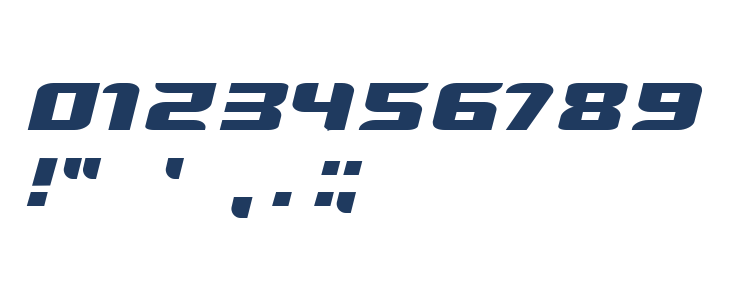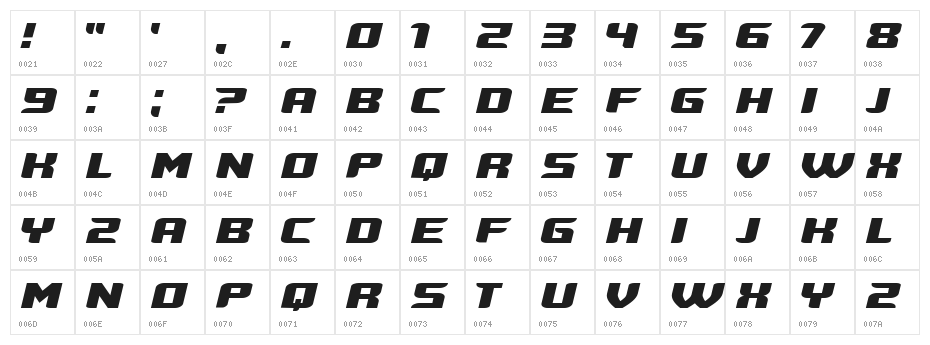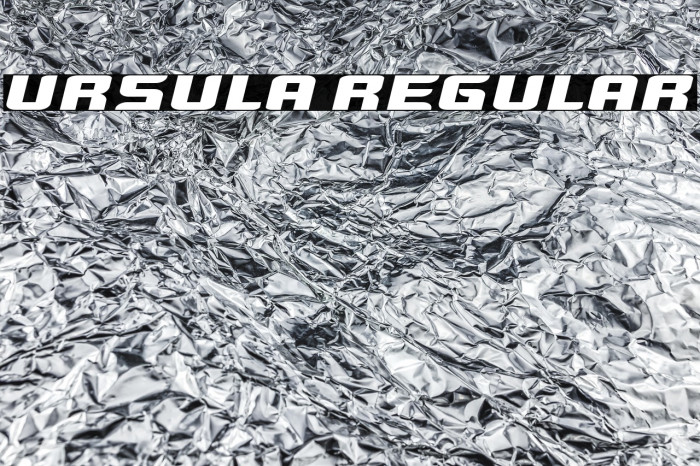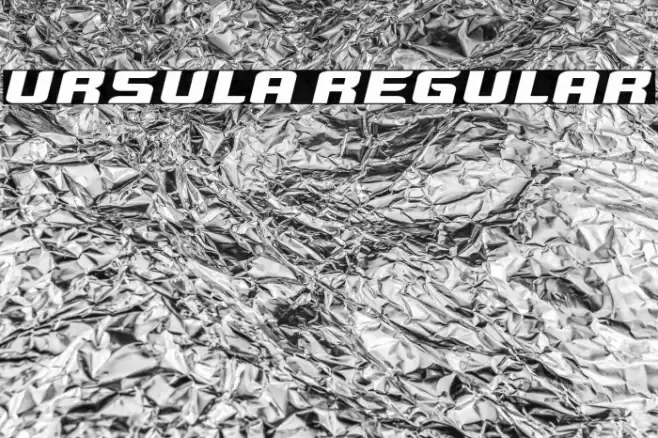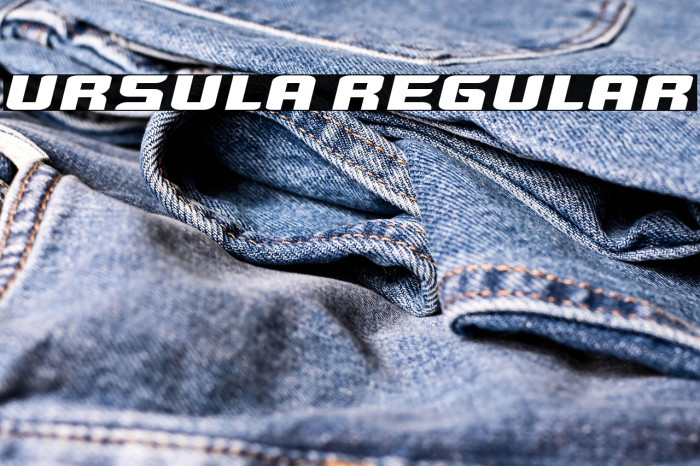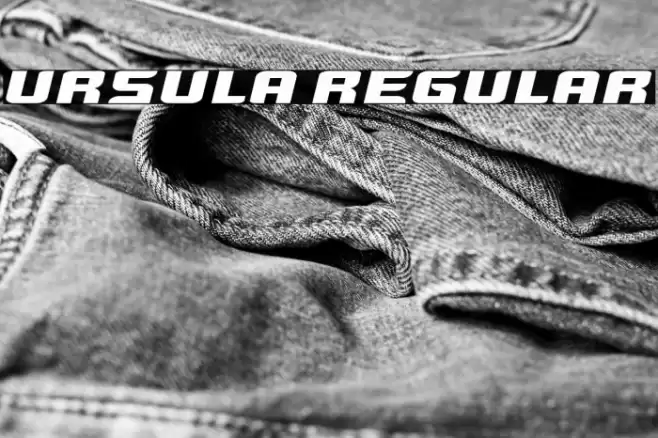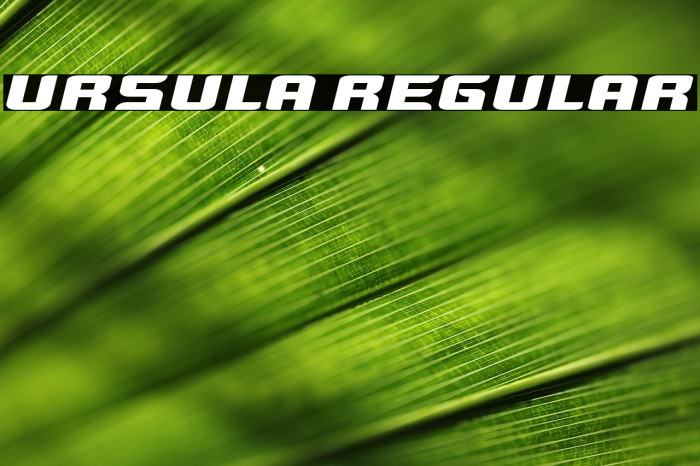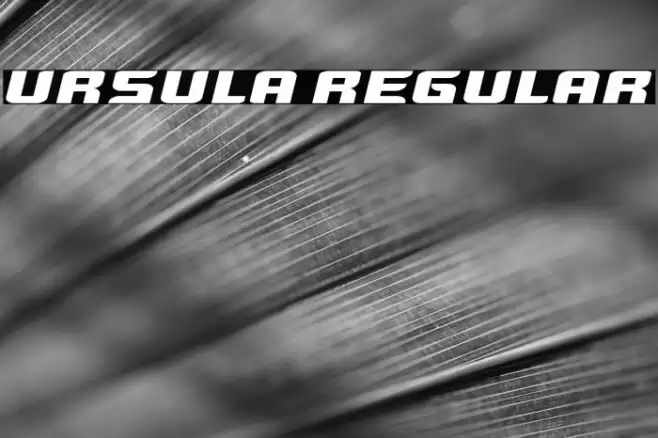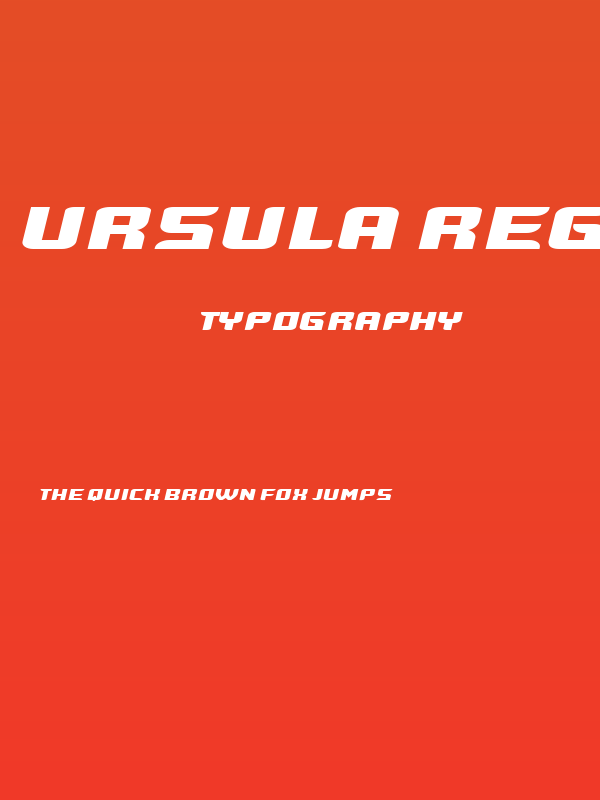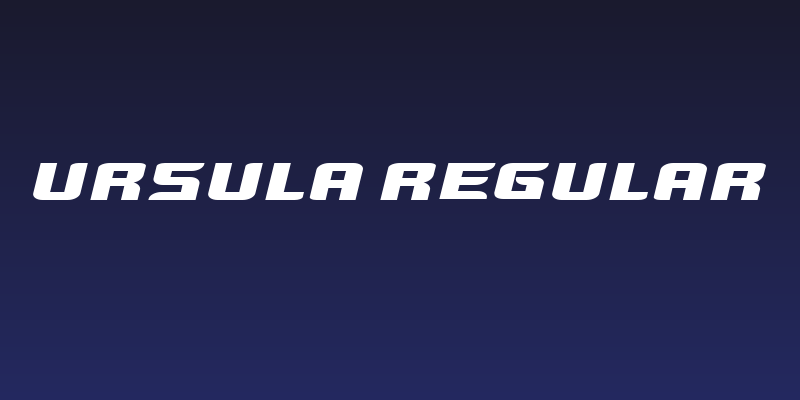
Ursula Regular Font
Ursula Regular Description
This font features a bold and dynamic design with a modern edge. The characters are slightly slanted, giving a sense of motion and energy. The strokes are thick and consistent, providing a strong visual impact. The uppercase letters are particularly striking, with sharp angles and a futuristic feel. The numbers and special characters maintain the same bold style, ensuring uniformity across all elements. This font is well-suited for projects that require a contemporary and assertive look.
| Proposed Projects | Ideal for sports branding, tech logos, and dynamic headlines. |